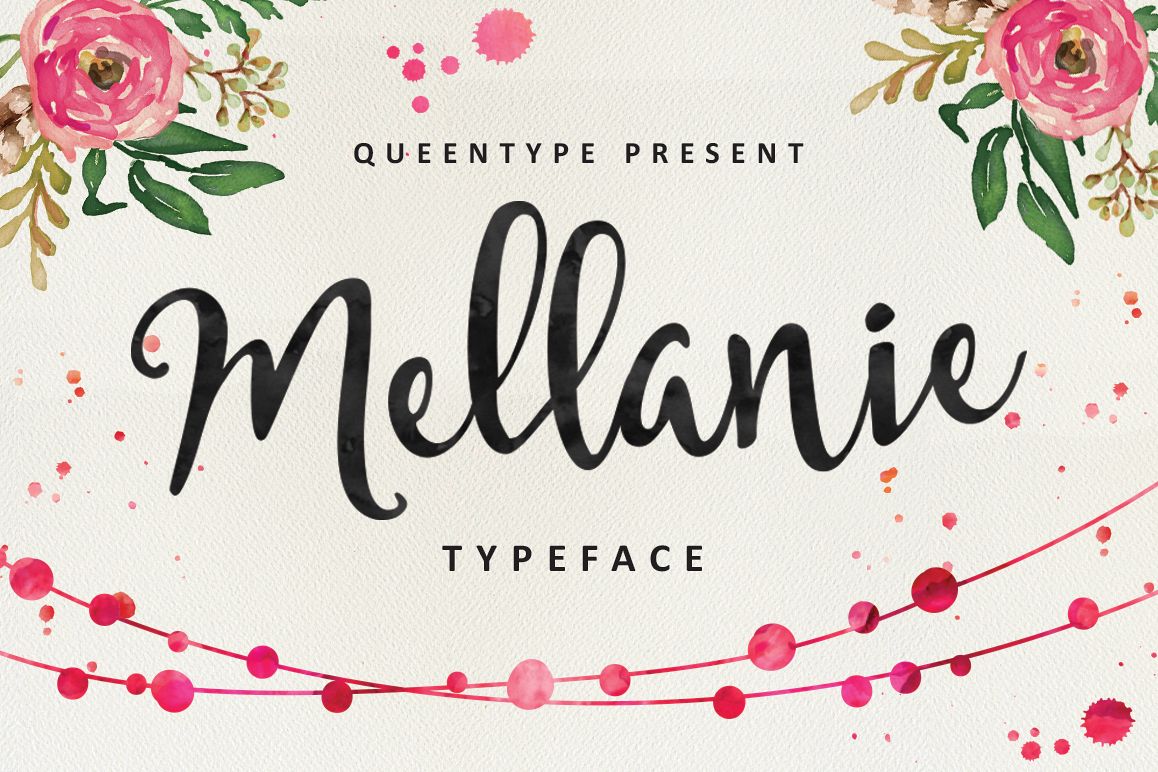
Mellanie Script
Mellanie
Mellanie Typeface is a beautiful handmade script give the natural
looks. Alternate character contain with opentype features. Stylistic
alternates, Ligature and more. You can access all those alternate
Great for Apparel Brand, any greeting cards, book cover, Painting
design style, or any design that needs natural and personal touch. Mix
and match the alternate characters to add an attractive message to your
design.